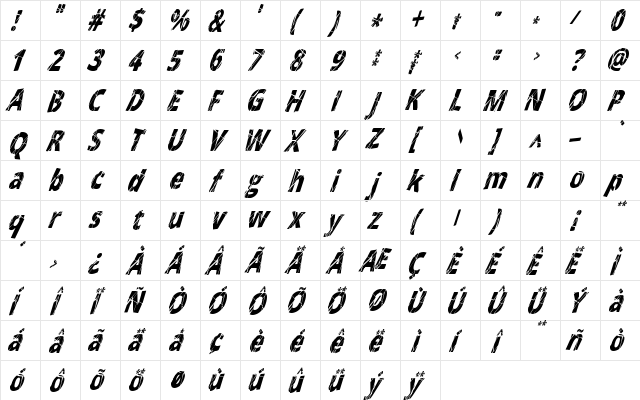
CrackedNarrowItalic Regular
Design Context for CrackedNarrowItalic Typeface
CrackedNarrowItalic is a composed and adaptable typeface that performs quietly and consistently across a wide range of design contexts. Its italic angle brings a sense of urgency and motion to the letterforms. The condensed width makes it efficient for tight spaces without sacrificing legibility.